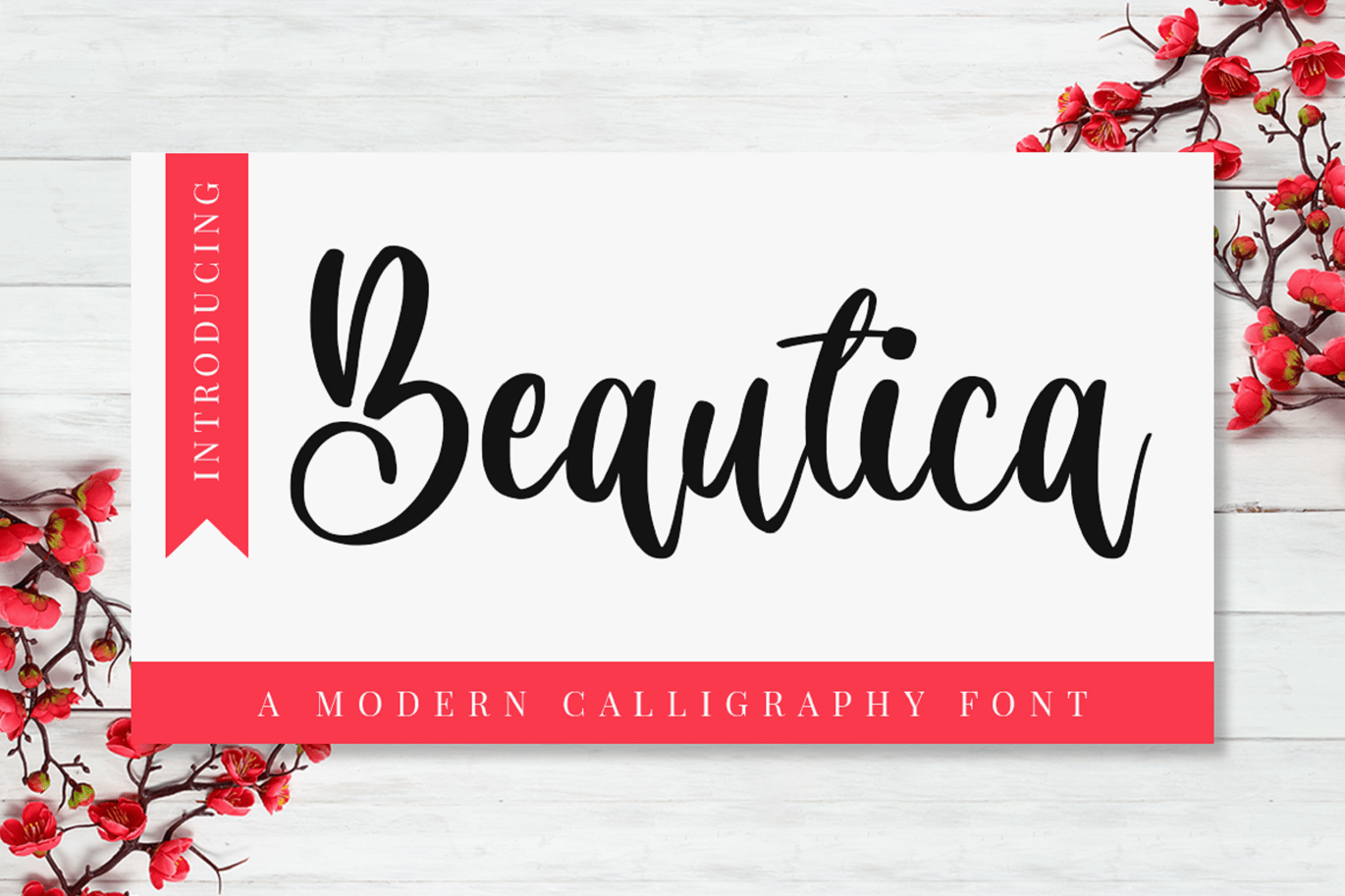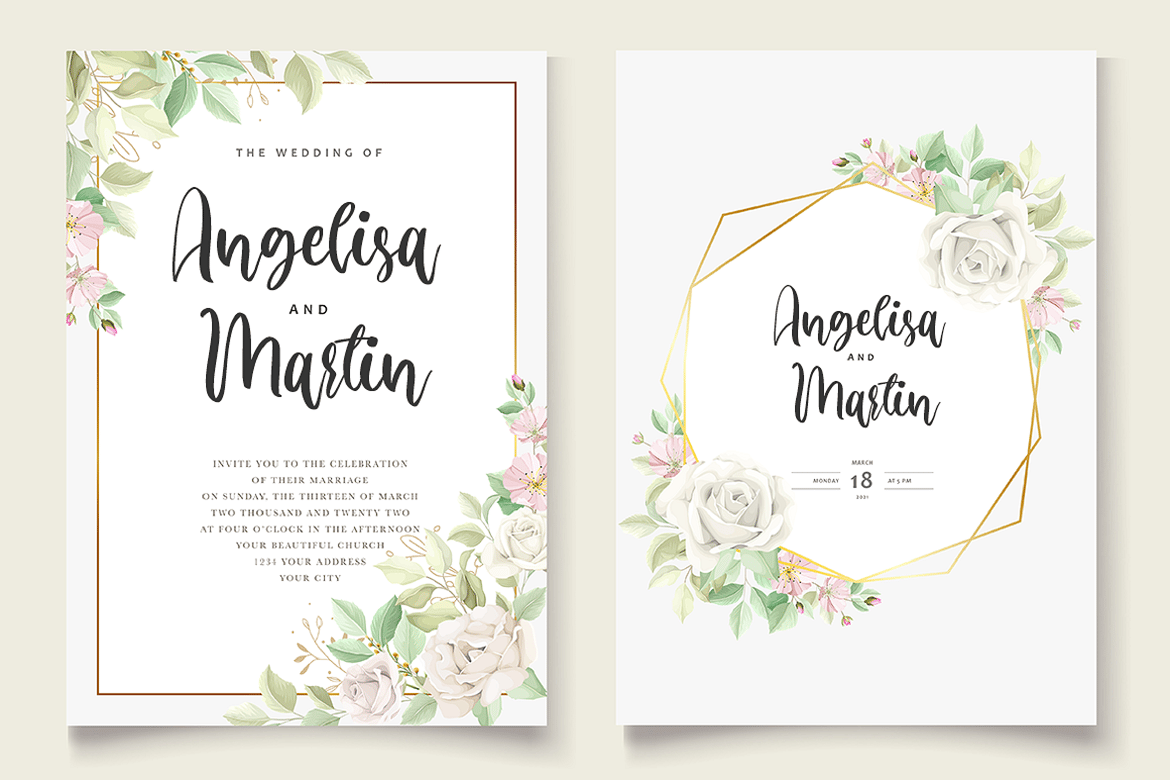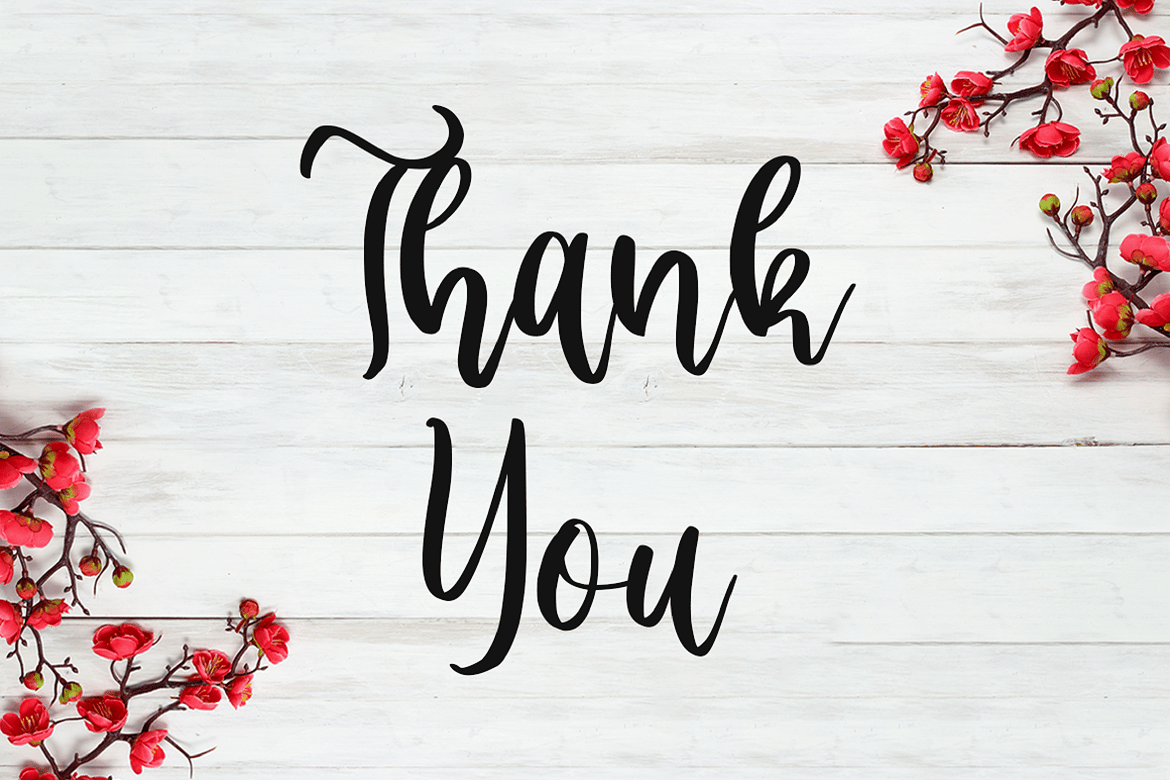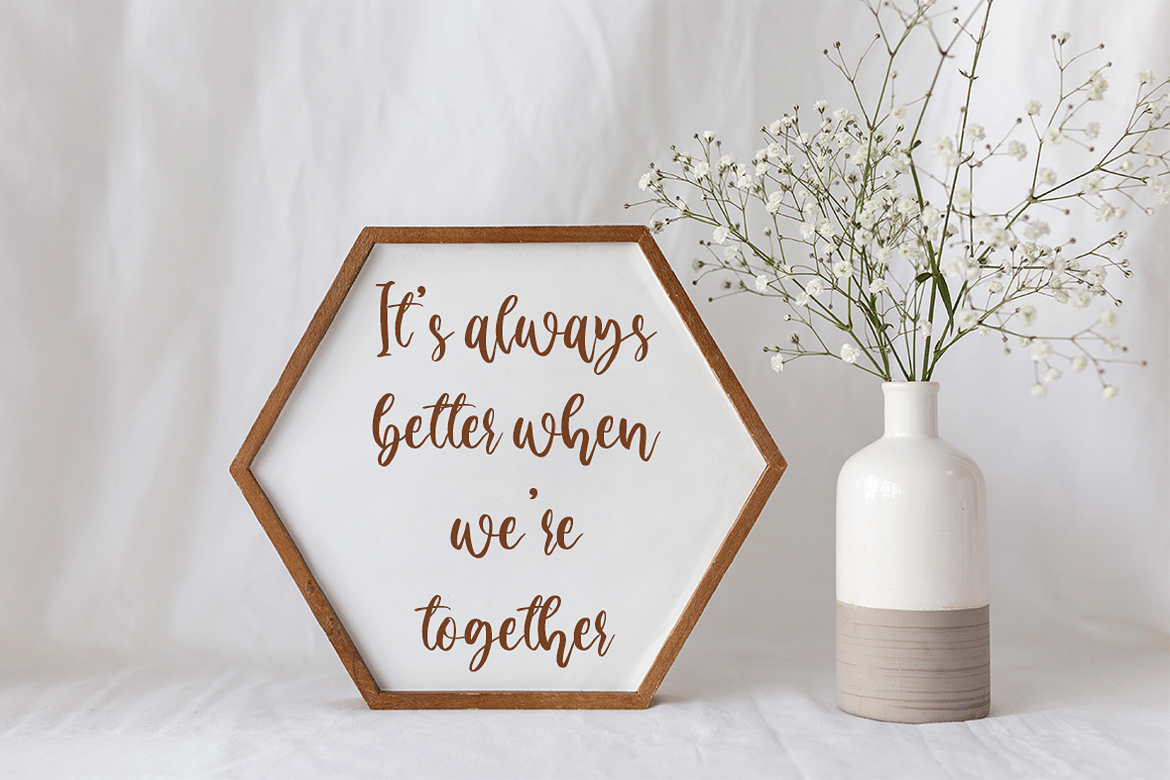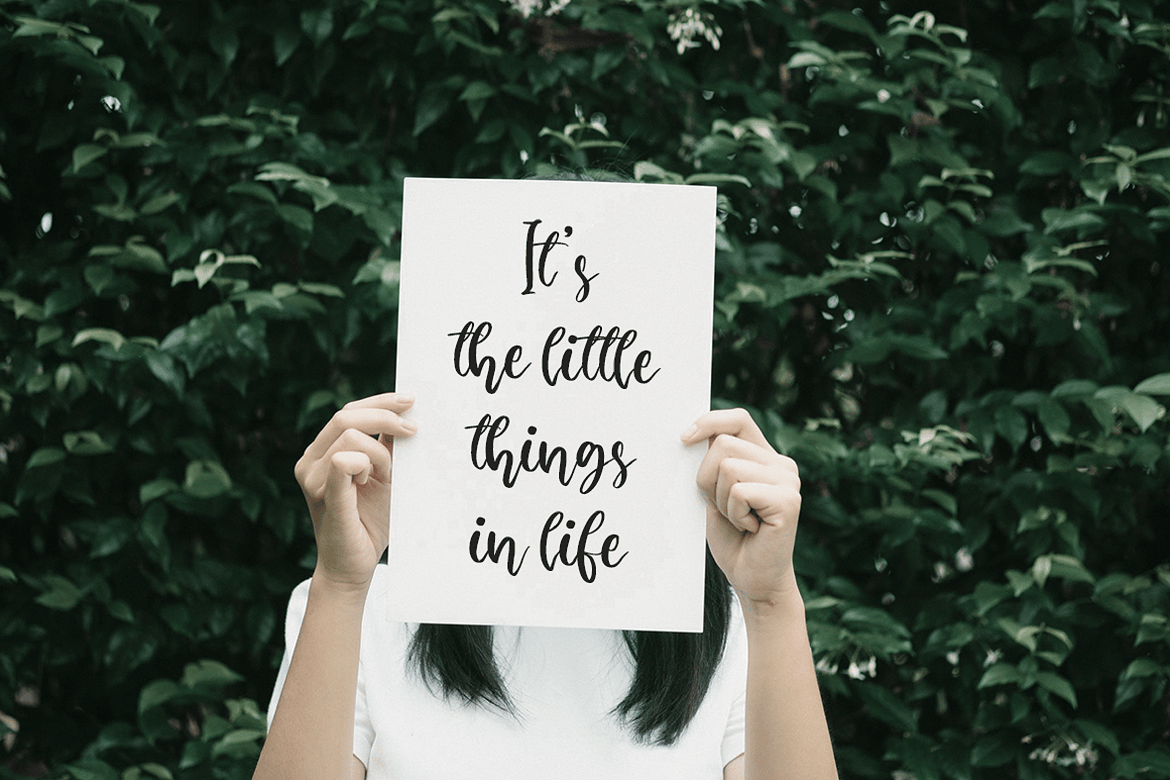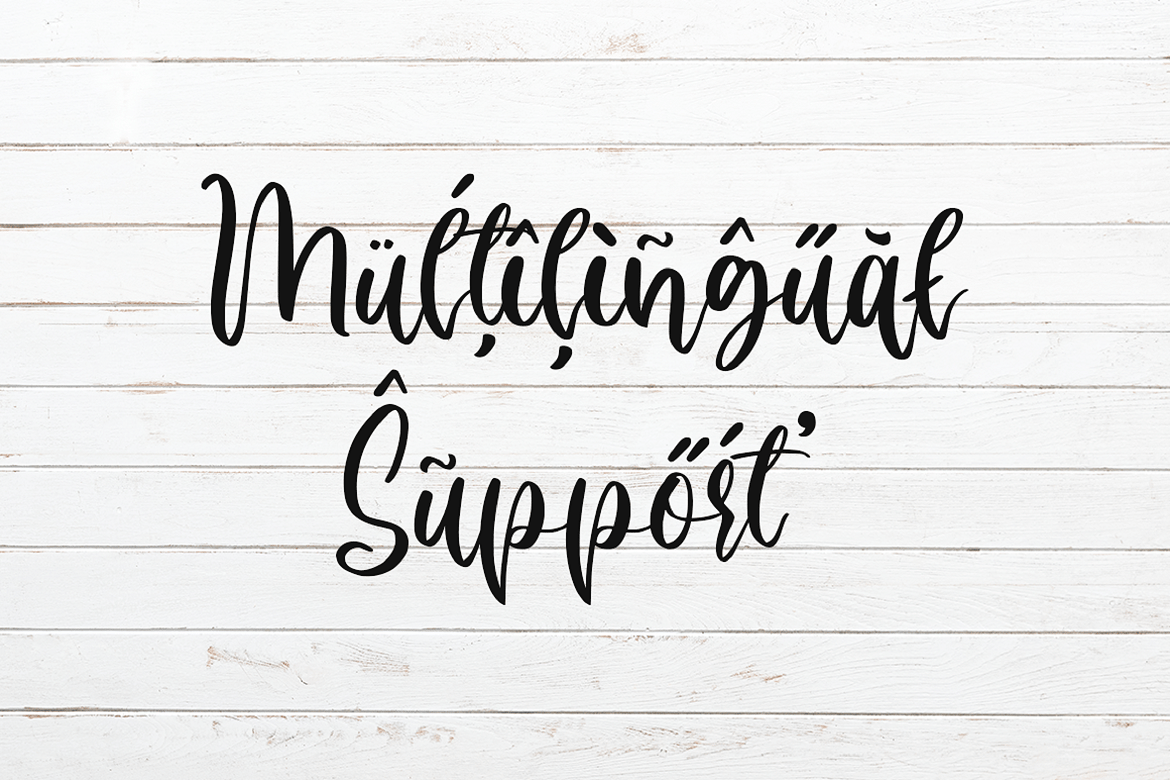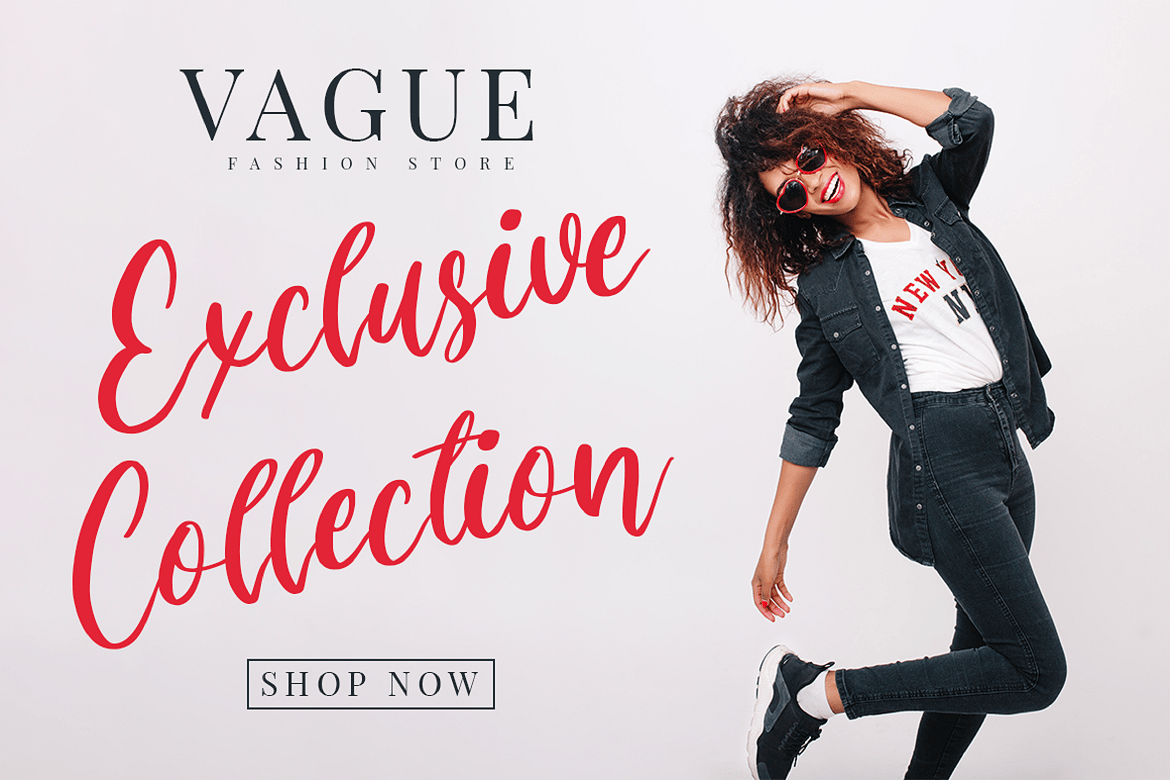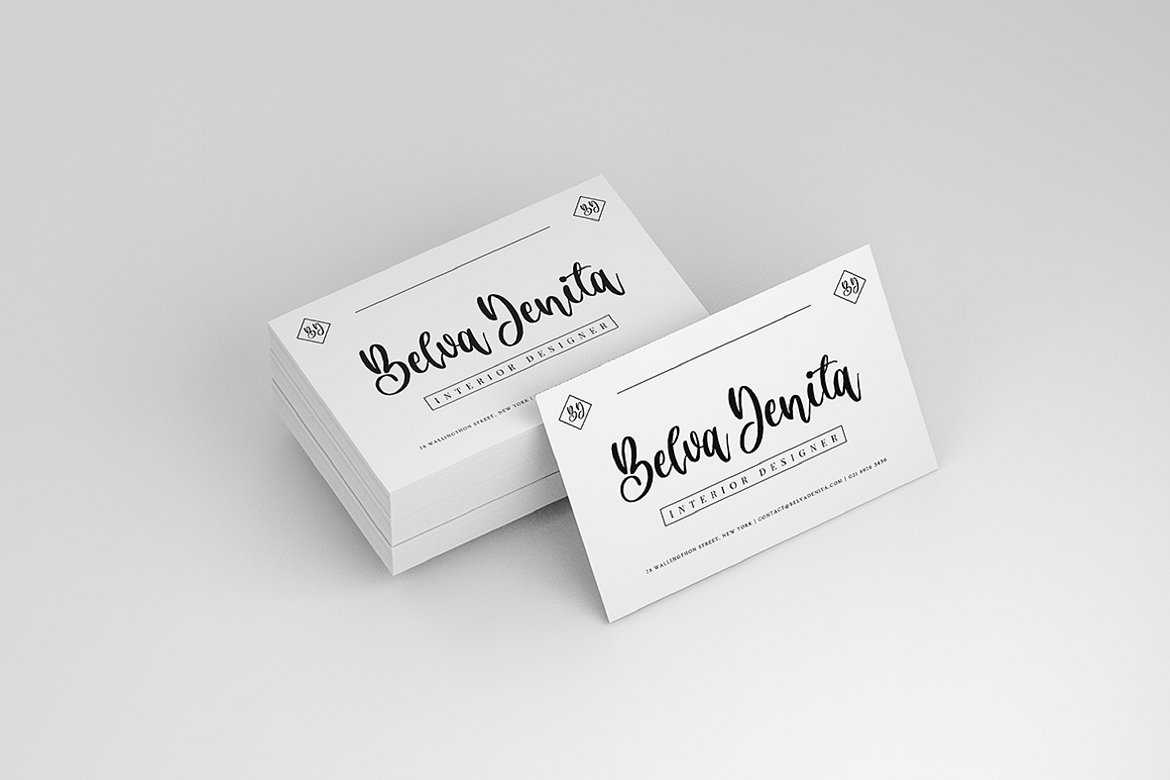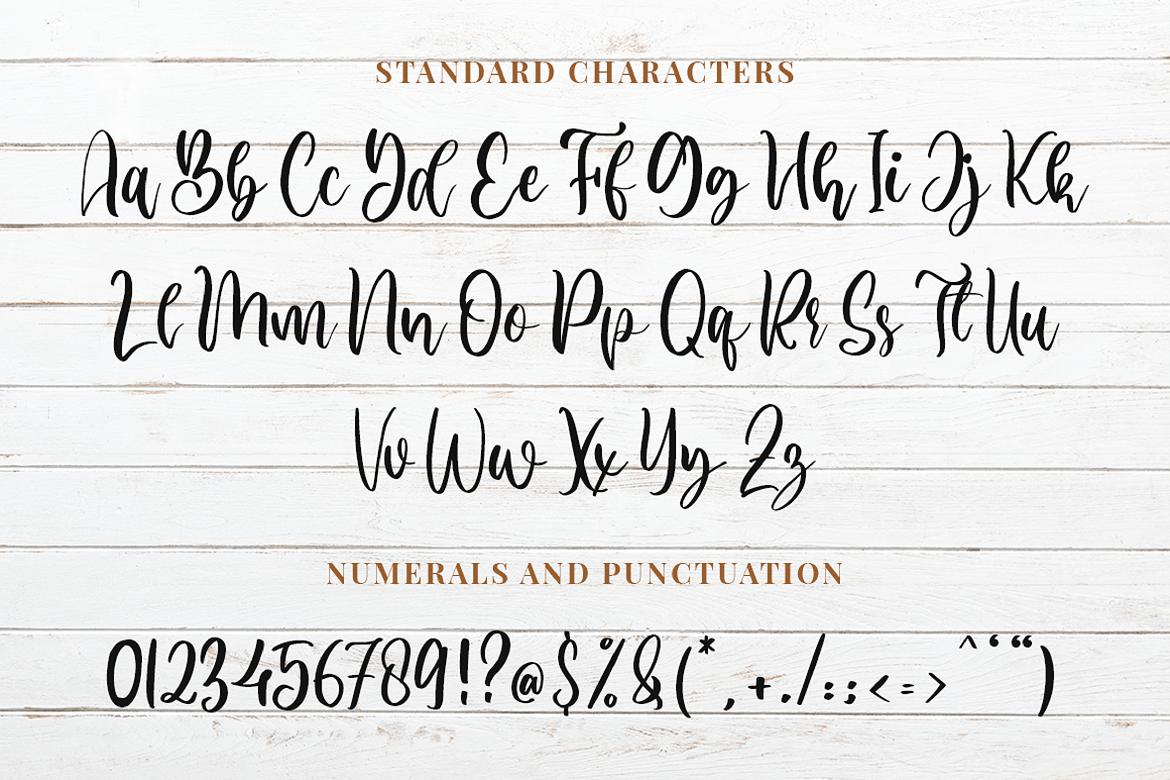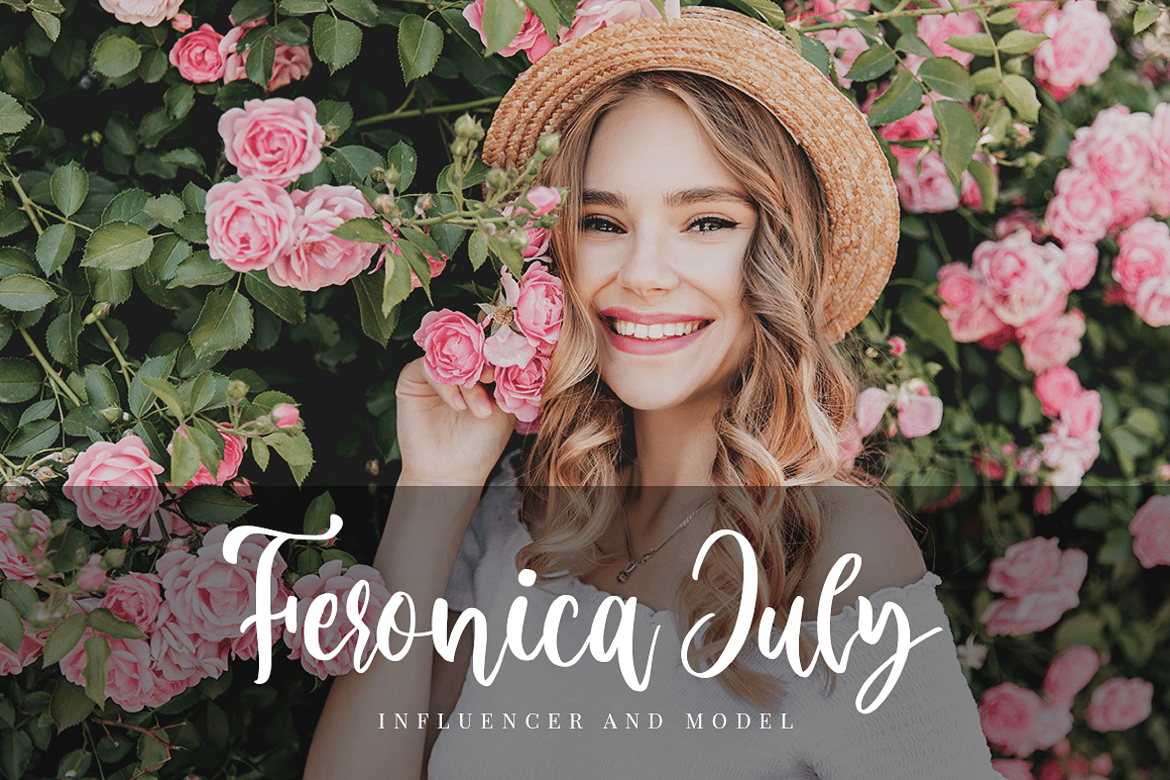
Calligraphy Font
Introducing Beautica – A Modern Calligraphy Font
This is a handcrafted and most natural, elegant, simple yet angelic font. This beautiful font can be used for various projects and promotions. Go ahead and use it on your website, your social media branding, Pinterest banners, printed invitations, and more!
Inspire your audience, clients, or guests with richness of elegance with this modern handwritten font.
- Multilingual & Ligature Support
- Full sets of Punctuation and Numerals